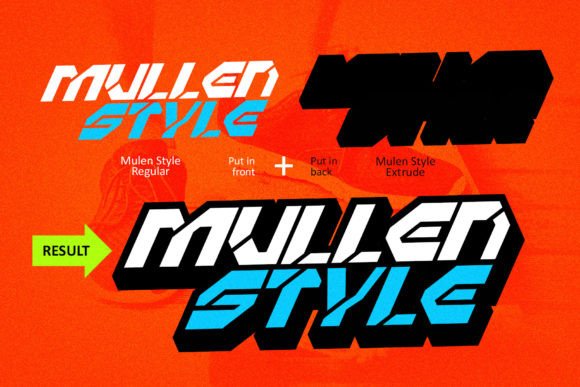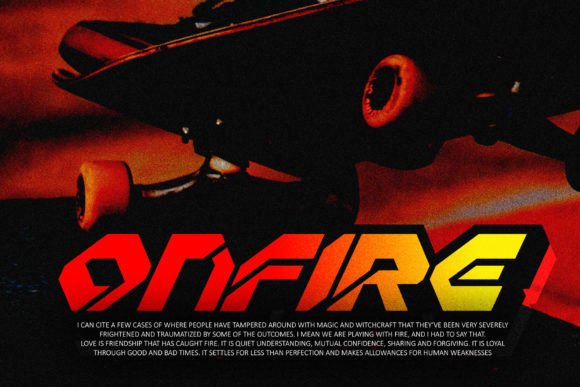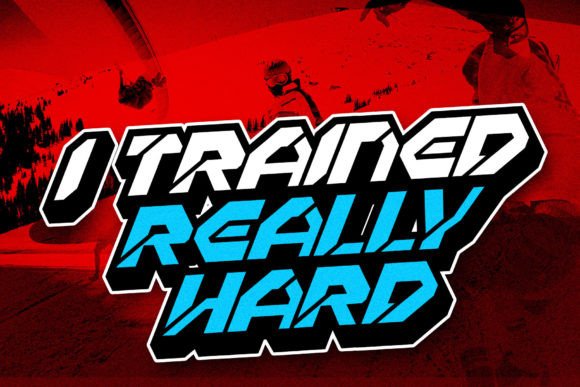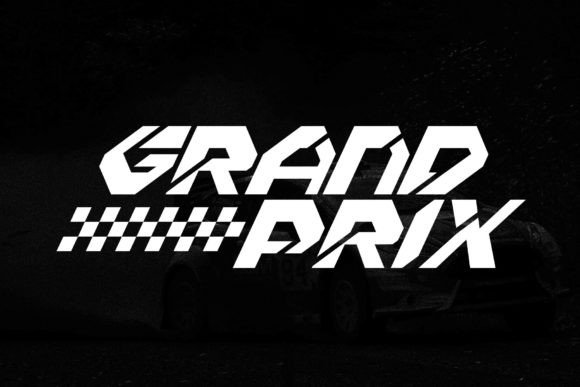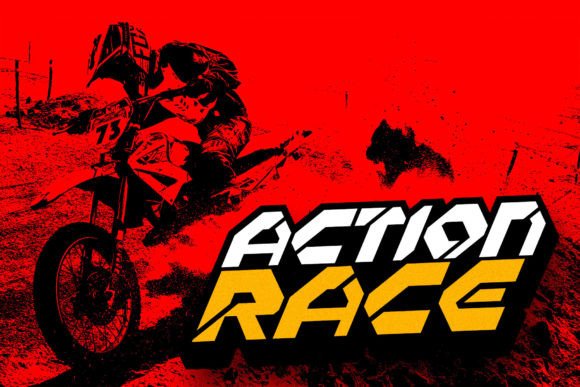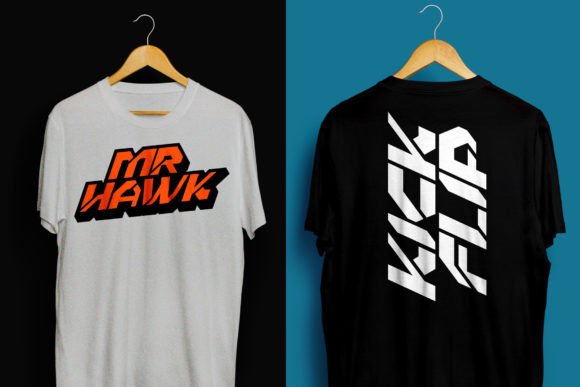
Introduction to Mullen Style Font Font
Fonts play a crucial role in design, and the Mullen Style Font font is a typeface that brings both character and versatility to any project. Whether you’re working on a branding project, a website, or a print design, the Mullen Style Font font offers a unique style that can elevate your work.
| 📌 Font Name | Mullen Style Font |
| 👤 Author | HIRO.std |
Mullen Style is X-Games sports-inspired display font.
Key Features of Mullen Style Font Font
Why Choose Mullen Style Font Font?
The Mullen Style Font font is more than just a typeface – it’s a design tool that helps you communicate your message with style and clarity. Its unique character set and versatile design make it suitable for a wide range of applications, from elegant invitations to bold headlines.
With its carefully crafted letterforms and balanced proportions, the Mullen Style Font font ensures readability and visual appeal across all mediums.
What makes Mullen Style Font font special?
The Mullen Style Font font stands out with its unique design, exceptional readability, and versatility across various design applications.